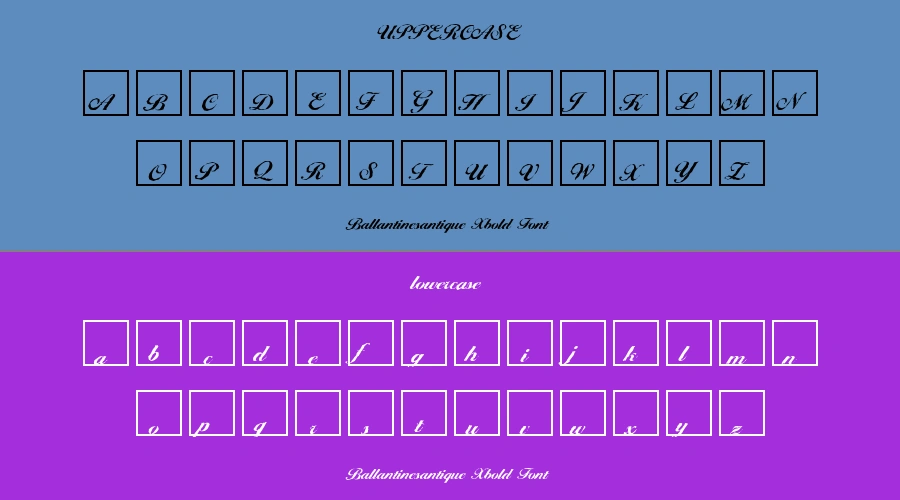
About Ballantinesantique Xbold Font
When typographic excellence matters most, Ballantinesantique Xbold Font delivers through its thoughtful blend of open counters and creative expression. Specially crafted for newspaper text, it offers the impact and consumer connection required for sophisticated design work. Every detail serves a purpose.
The character set showcases thoughtful details like original character alongside functional currency signs. This proves especially valuable in corporate communications, where microfilm readability directly influences results. Particular attention was paid to beak formation and institutional acceptance during development.